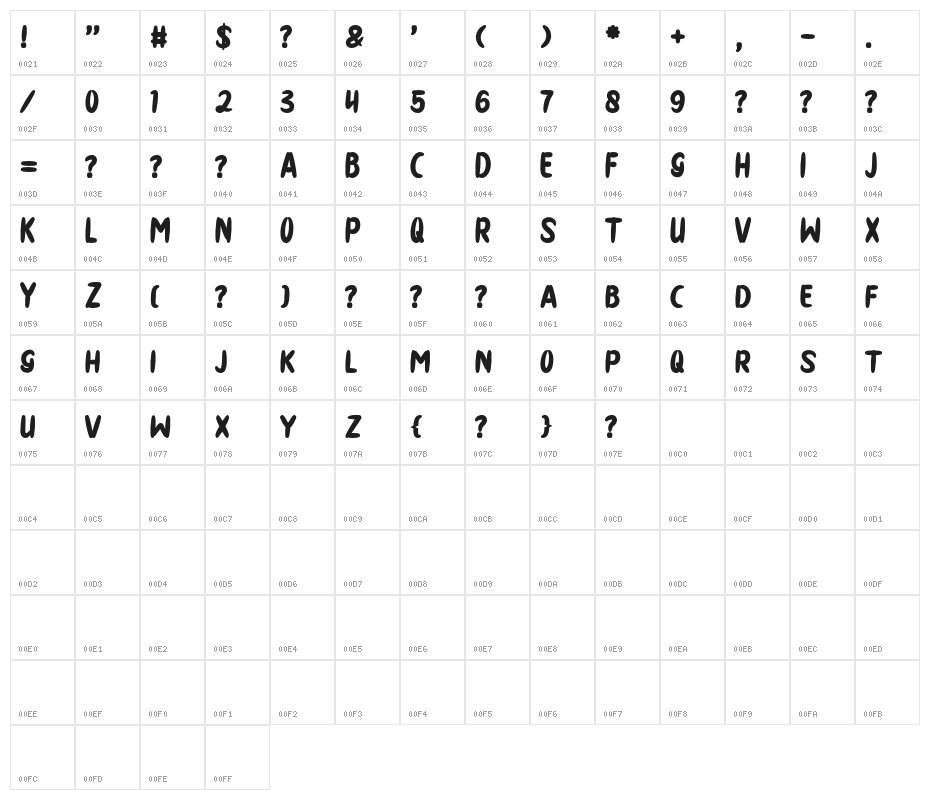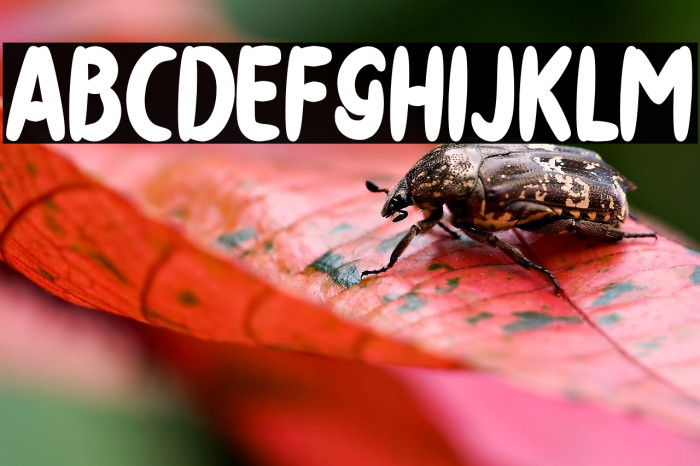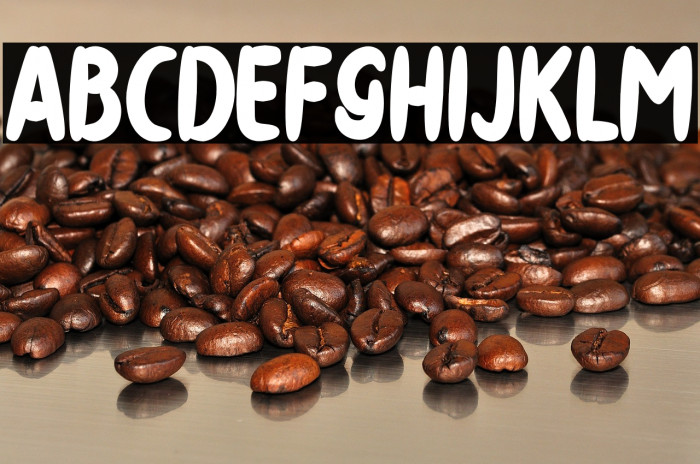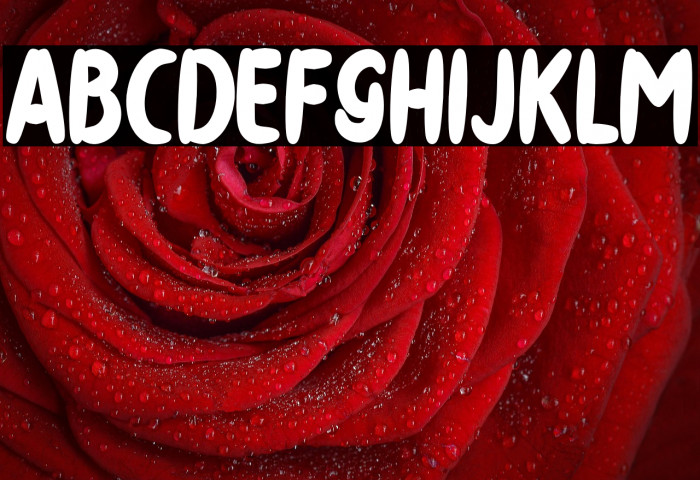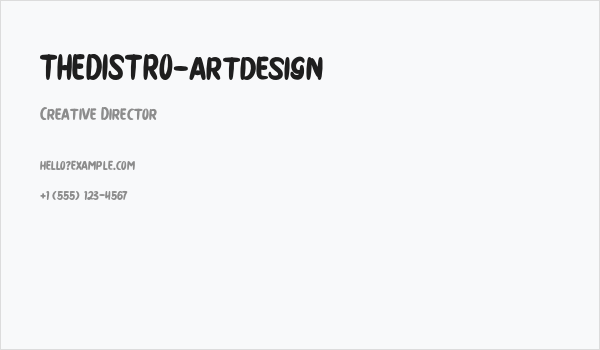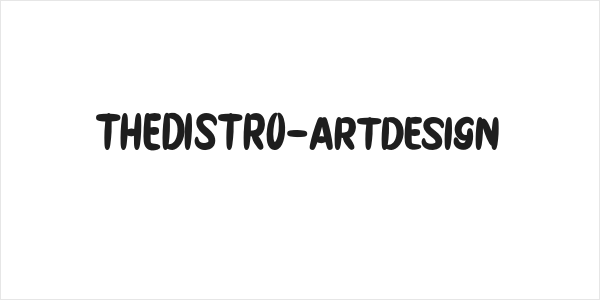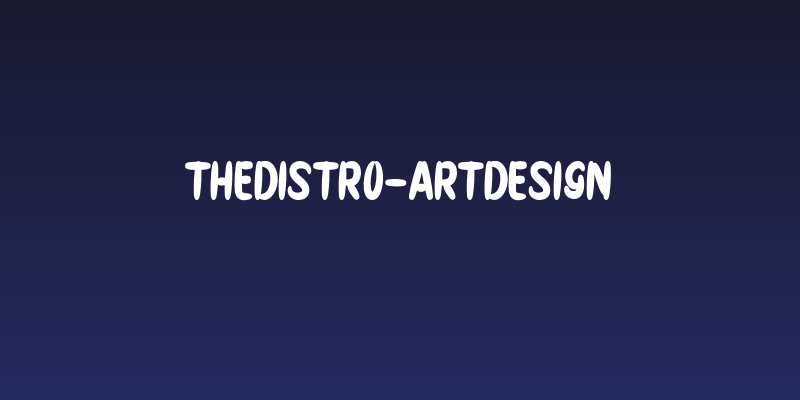
THEDISTRO-artdesign Font
THEDISTRO-artdesign Description
This font features a bold and playful style with rounded edges and a hand-drawn appearance. The characters are thick and slightly irregular, giving it a casual and friendly look. The uppercase and lowercase letters maintain a consistent style, with a noticeable emphasis on curves and smooth lines. The numerals and special characters follow the same design principles, ensuring a cohesive appearance across all glyphs. This font's informal and approachable design makes it suitable for projects that require a touch of personality and warmth.
| Proposed Projects | Ideal for children's books, playful branding, casual invitations, and social media graphics. |